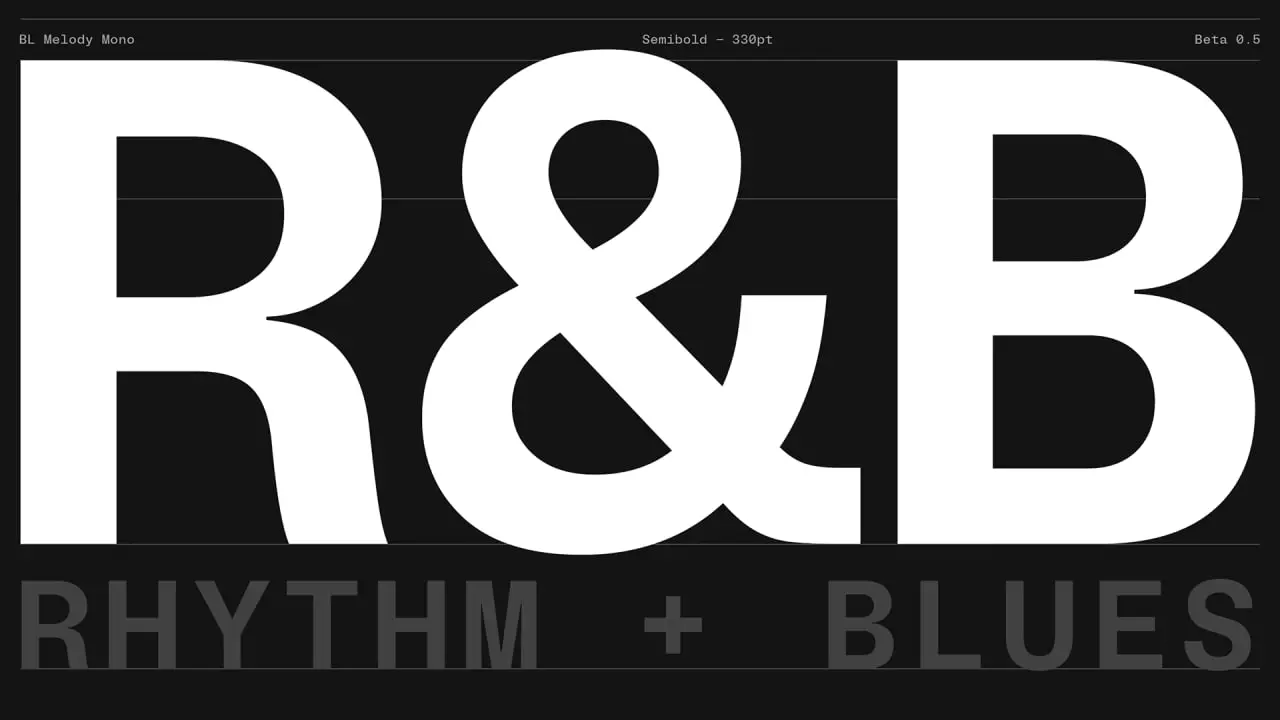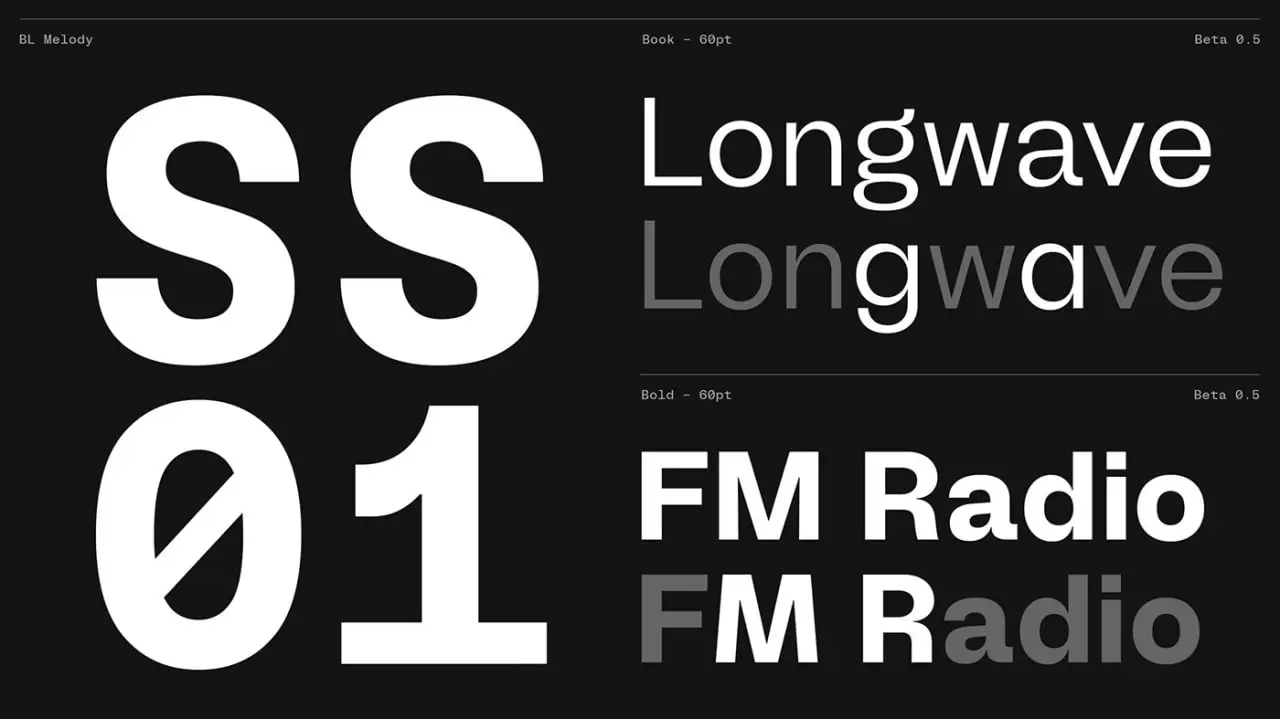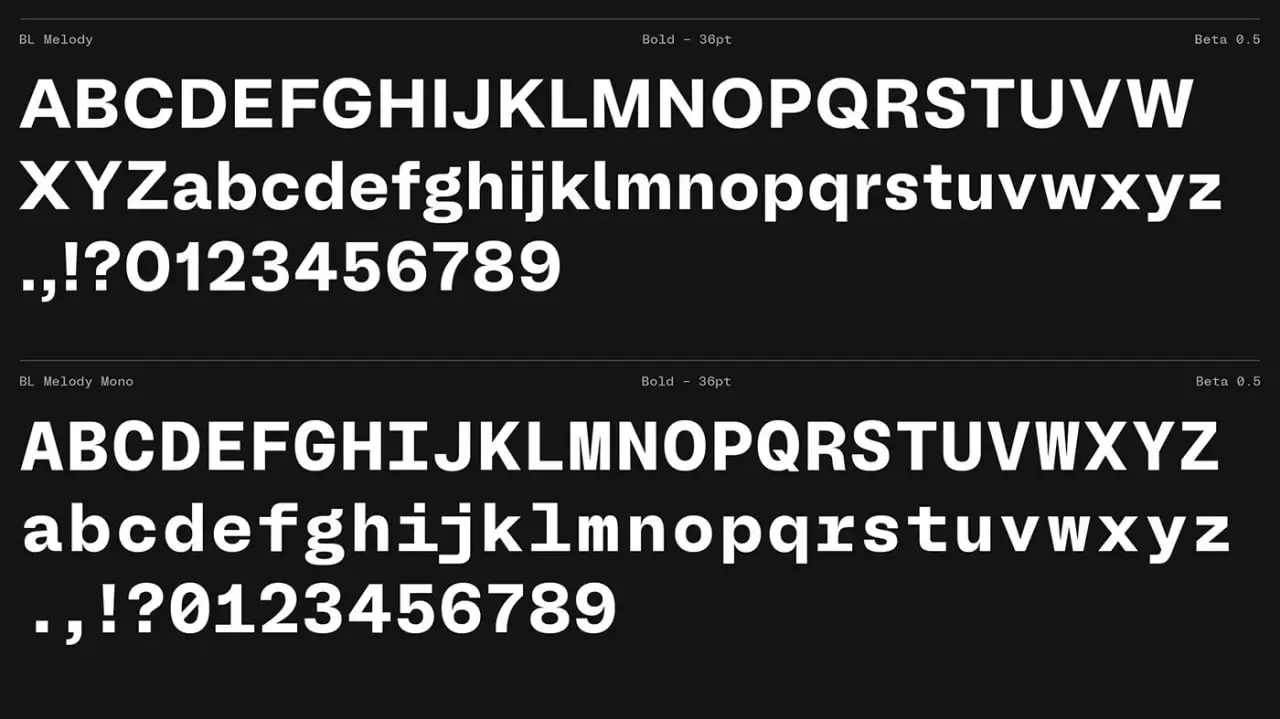
The Melody Variable Font by Boulevard Lab is a versatile typeface designed to meet a variety of design needs. This font features multiple weights and styles, allowing for seamless transitions between different typographic expressions.
Melody is available in OTF and TTF formats, ensuring compatibility across various platforms. Its variable nature allows designers to adjust the weight and width, making it perfect for both bold headlines and elegant body text.
- Ideal for branding projects, logos, and promotional materials.
- Great for web and print applications, providing clarity and style.
- Utilize its variable settings to create unique typographic compositions.